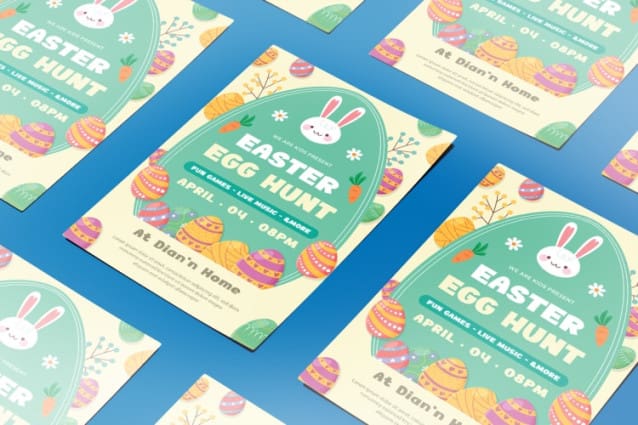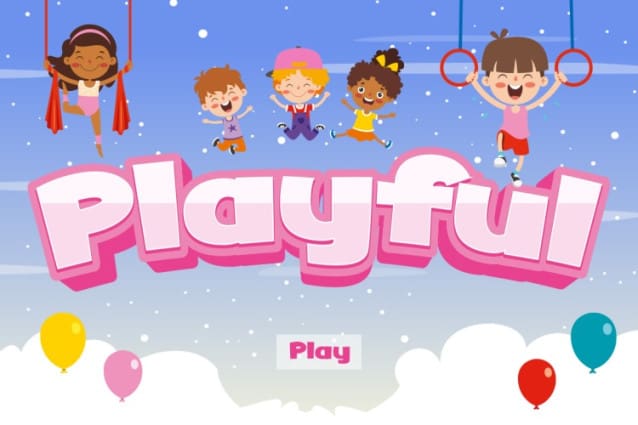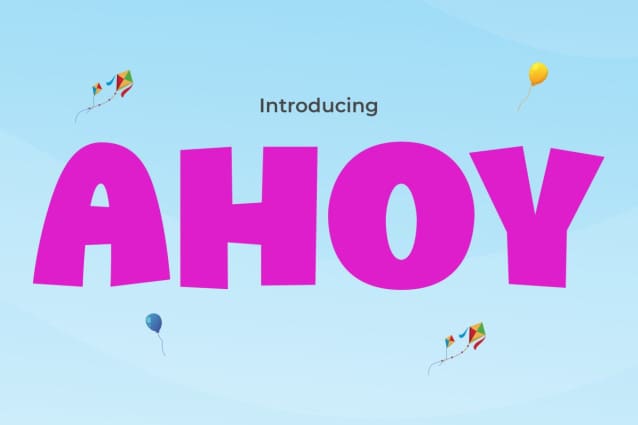
Ahoy Display Font
Ahoy Display Font, the perfect kids’ font that adds a fun and whimsical touch to any project! Designed with joyful curves and playful shapes, Ahoy embodies the essence of childhood wonder and excitement. This font is ideal for children’s books, educational materials, party invitations, and any design intended to engage and delight a young audience. Its charming character ensures that every word painted in Ahoy invites smiles and fosters a friendly, approachable vibe.
Ahoy Display Font is not just about looking cute; it’s also crafted to be highly readable and engaging for young readers. With its funny and friendly appearance, it helps to lower the reading barriers for children, making learning and reading a fun-filled adventure. Whether you’re creating content for classroom use, decorating a nursery, or planning a kid’s birthday bash, it is your go-to choice for bringing joy and laughter into your design. Embrace the playful spirit of Ahoy and watch your creative projects come to life with energy and enthusiasm!